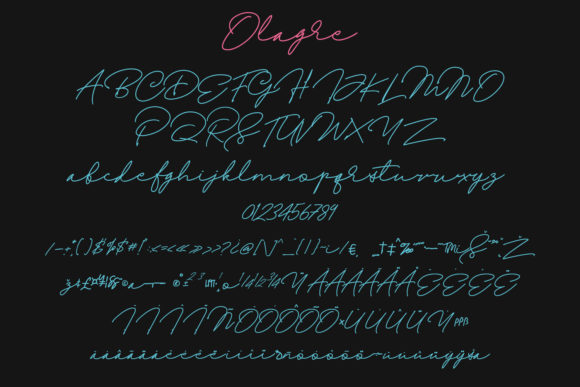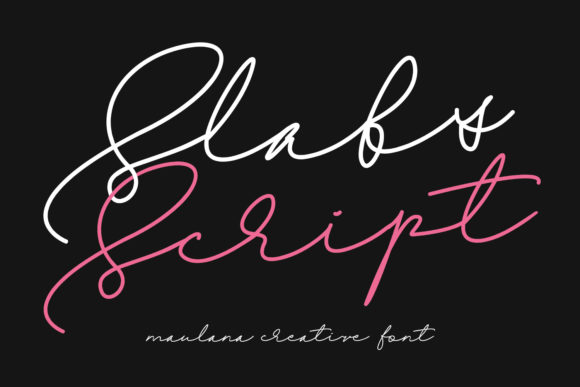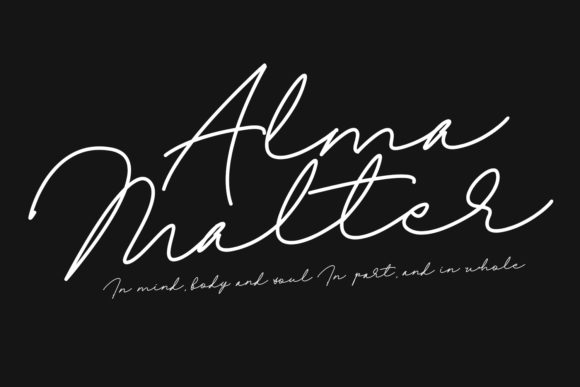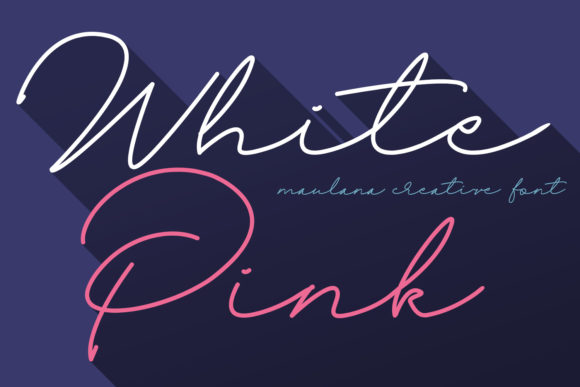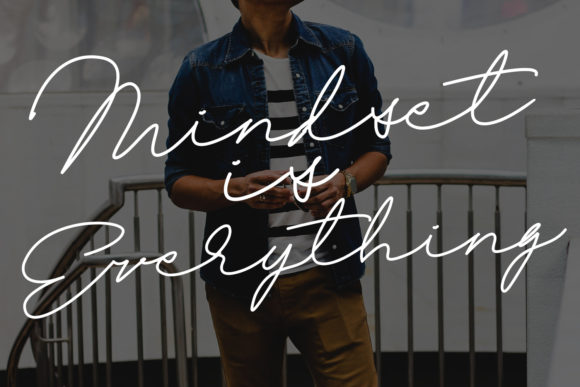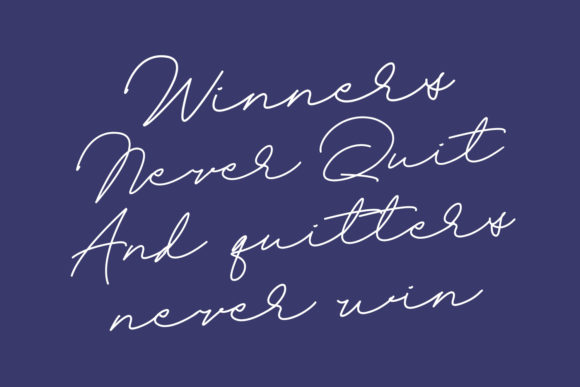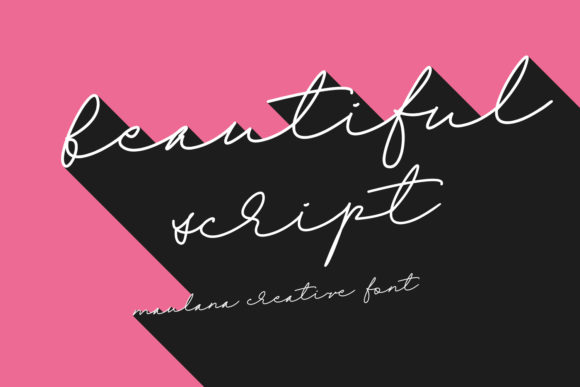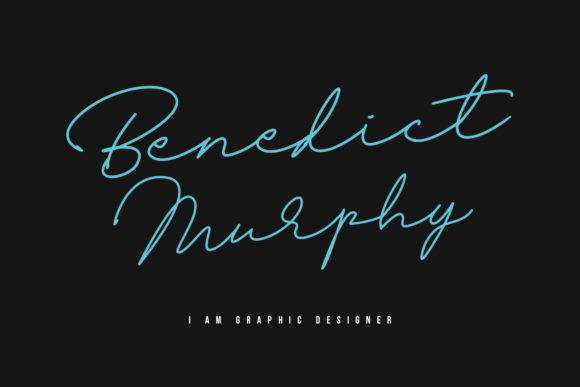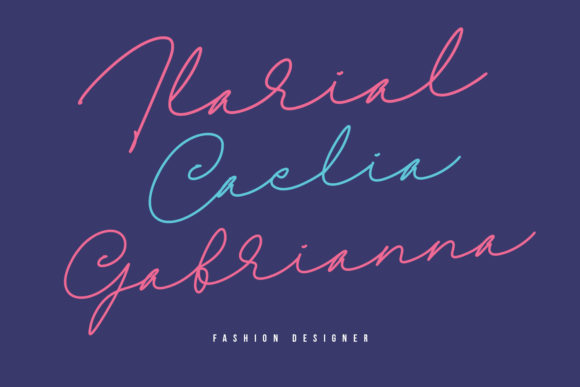
Olagre Font
About Olagre Font
Olagre is a unique handwritten font. It will elevate a wide range of design projects to the highest level, be it branding, headings, wedding designs, invitations, signatures, logos, labels, and much more!